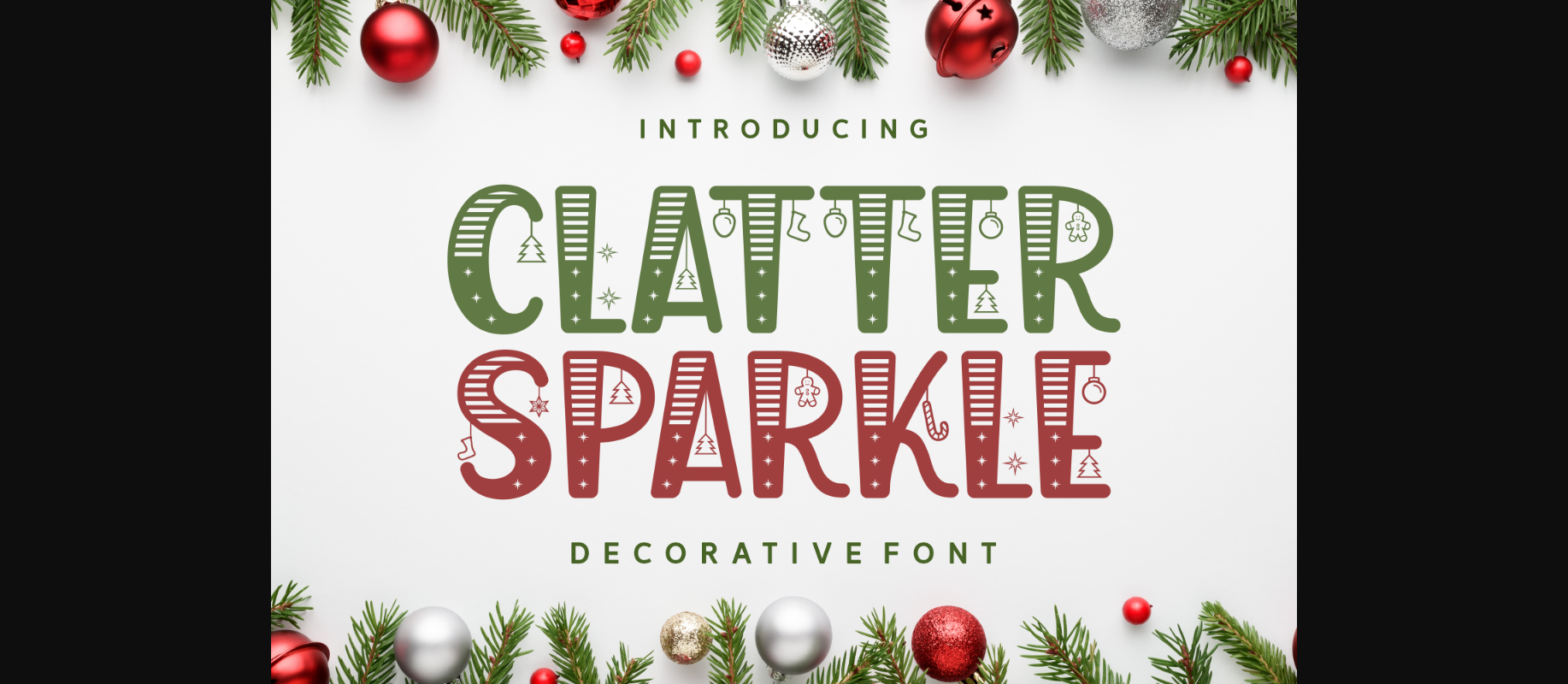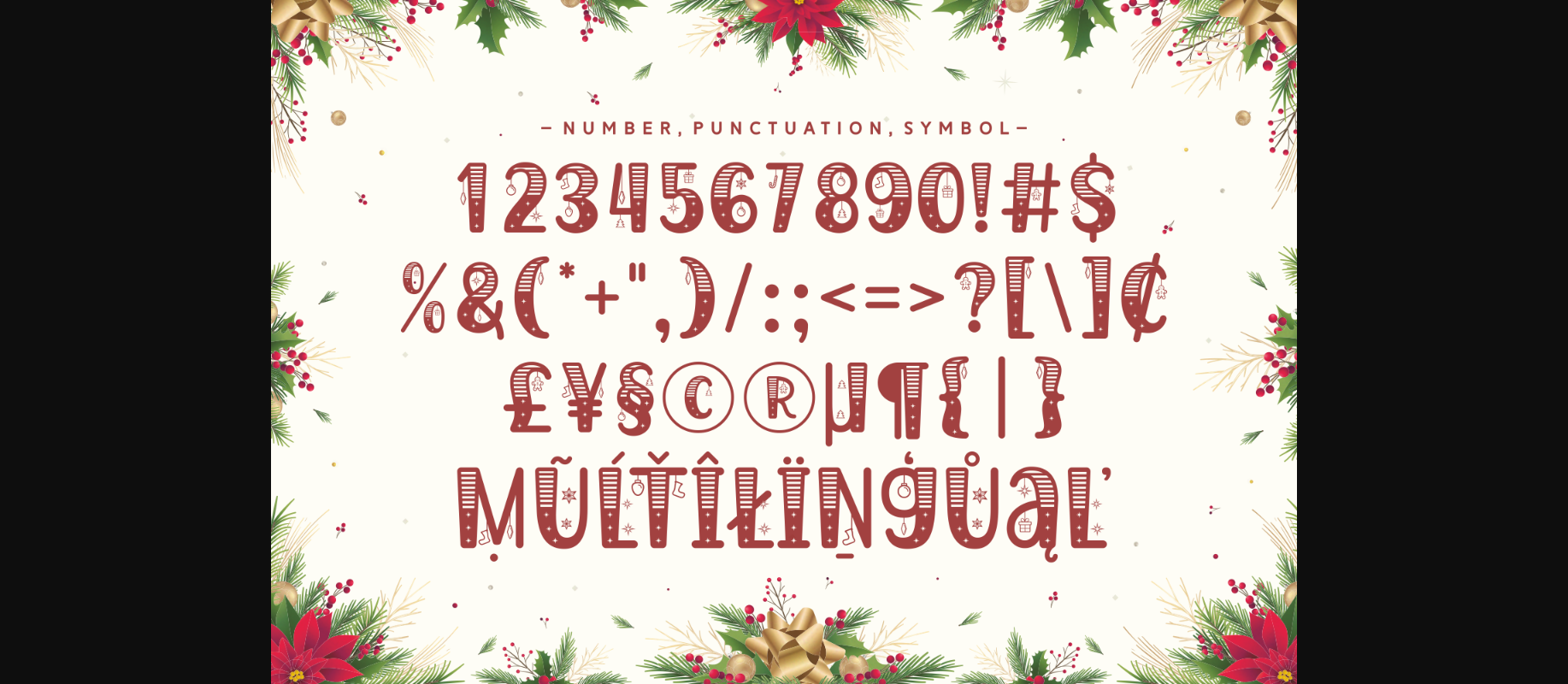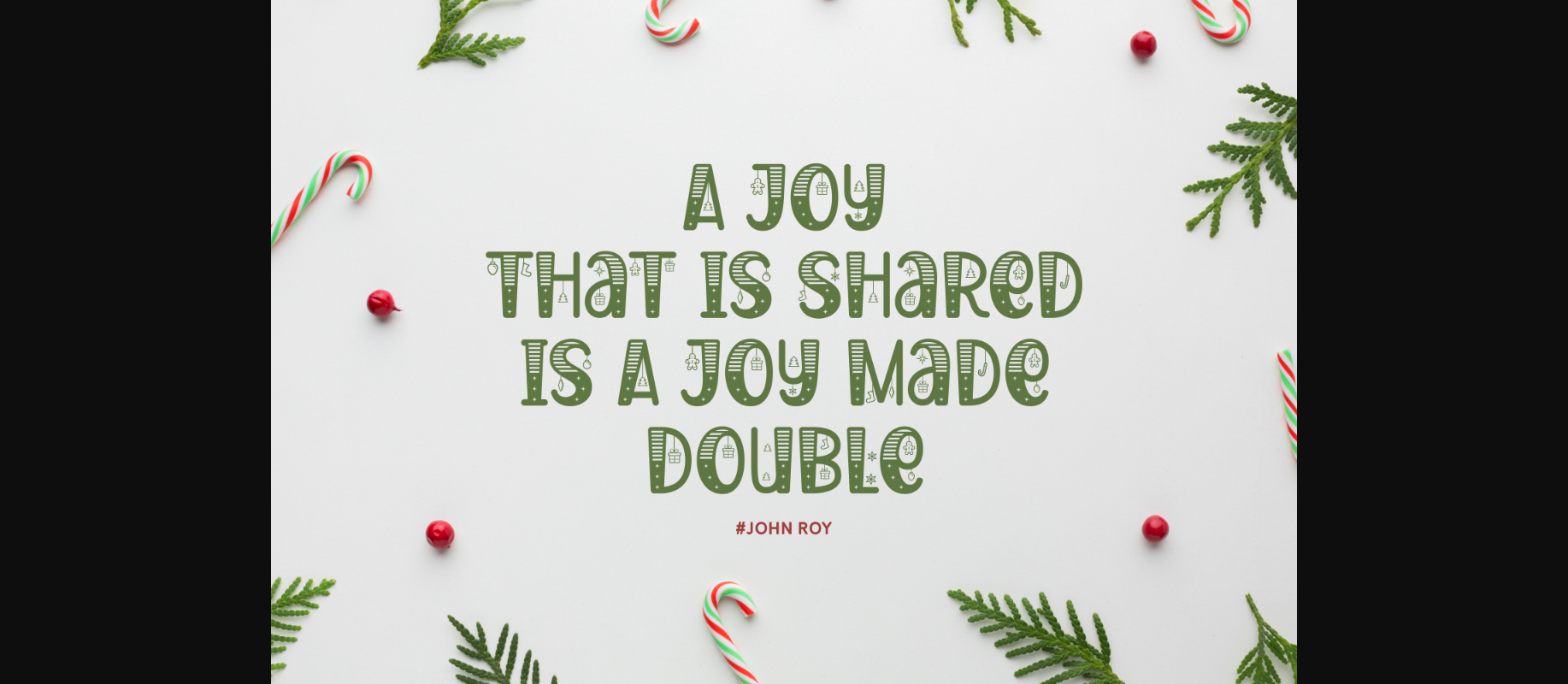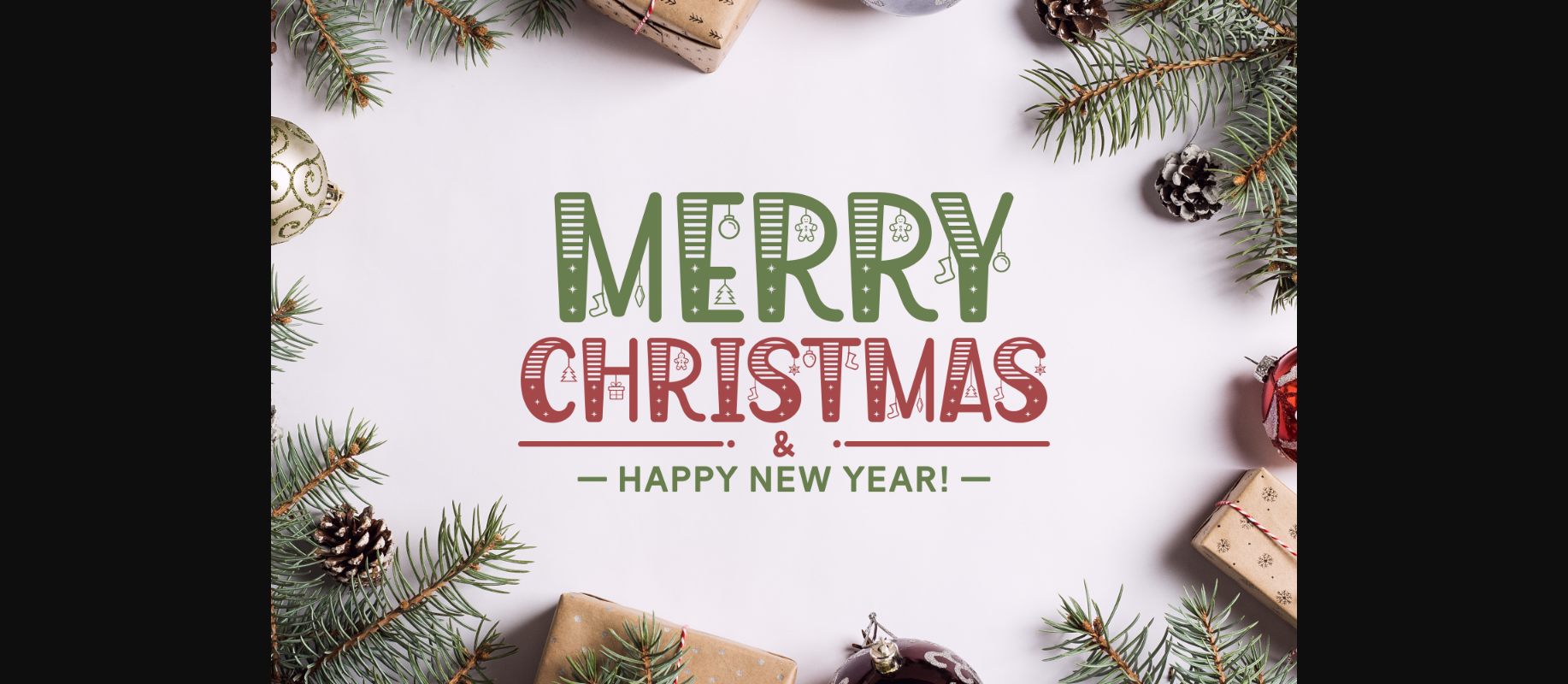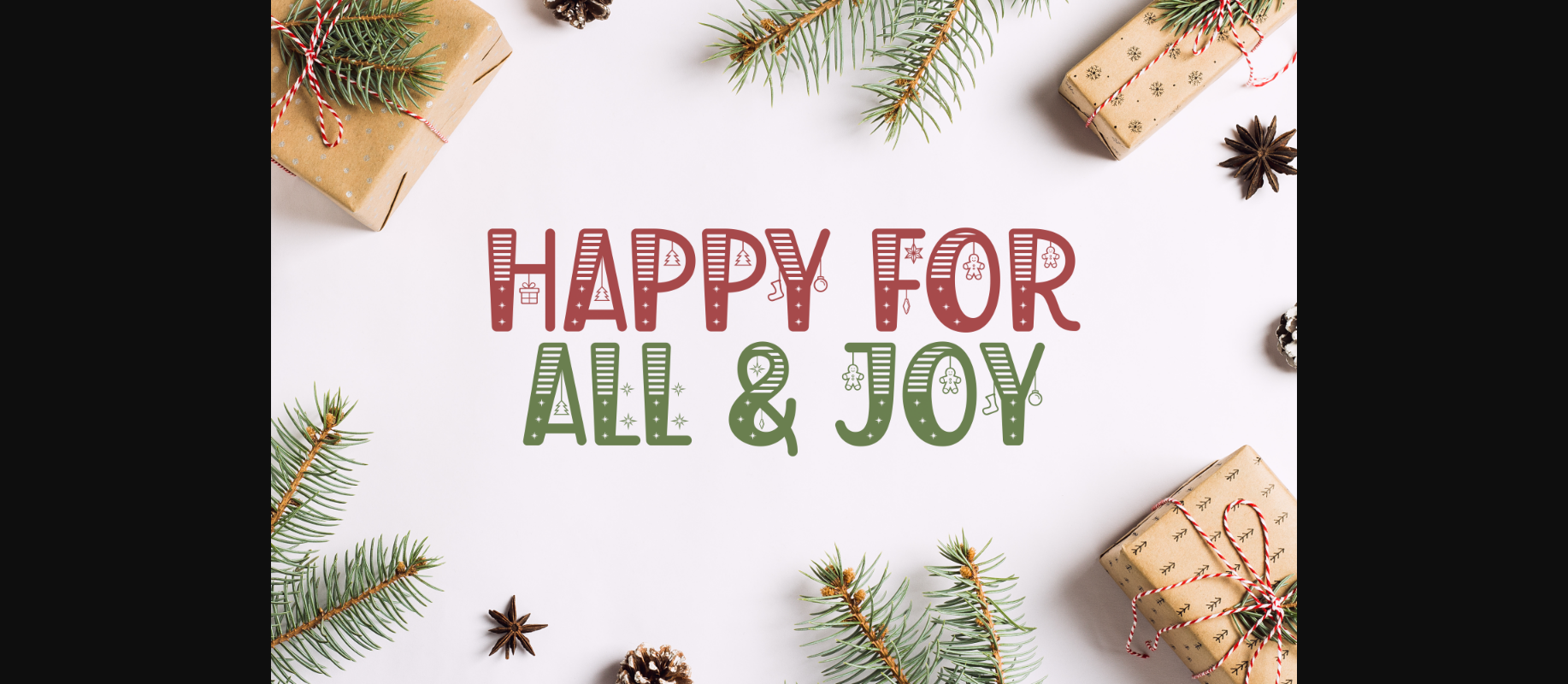
About Clatter Sparkle Font
Clatter Sparkle is a festive Christmas font that adds a touch of holiday magic to your designs. Each letter is adorned with charming hanging Christmas decorations, instantly bringing the joy and warmth of the season to your projects. Perfect for creating merry greeting cards, holiday banners, or any festive text that needs a touch of Yuletide cheer.